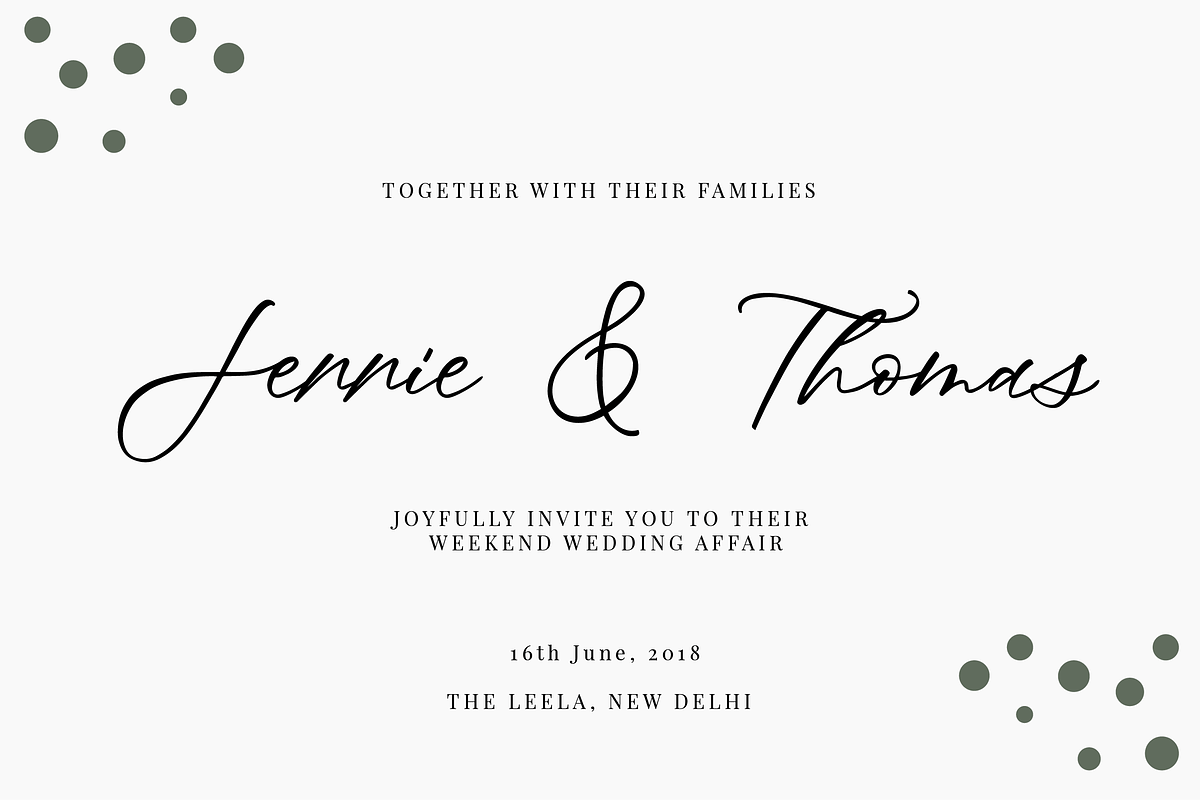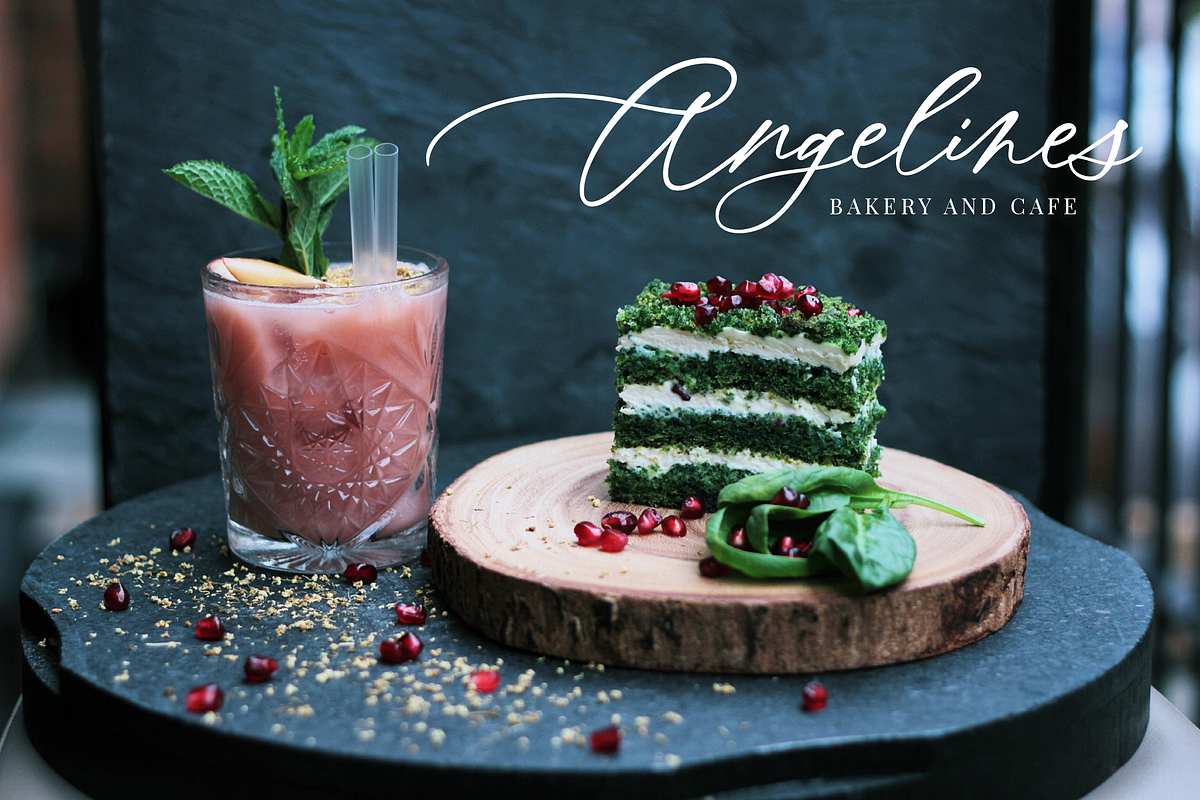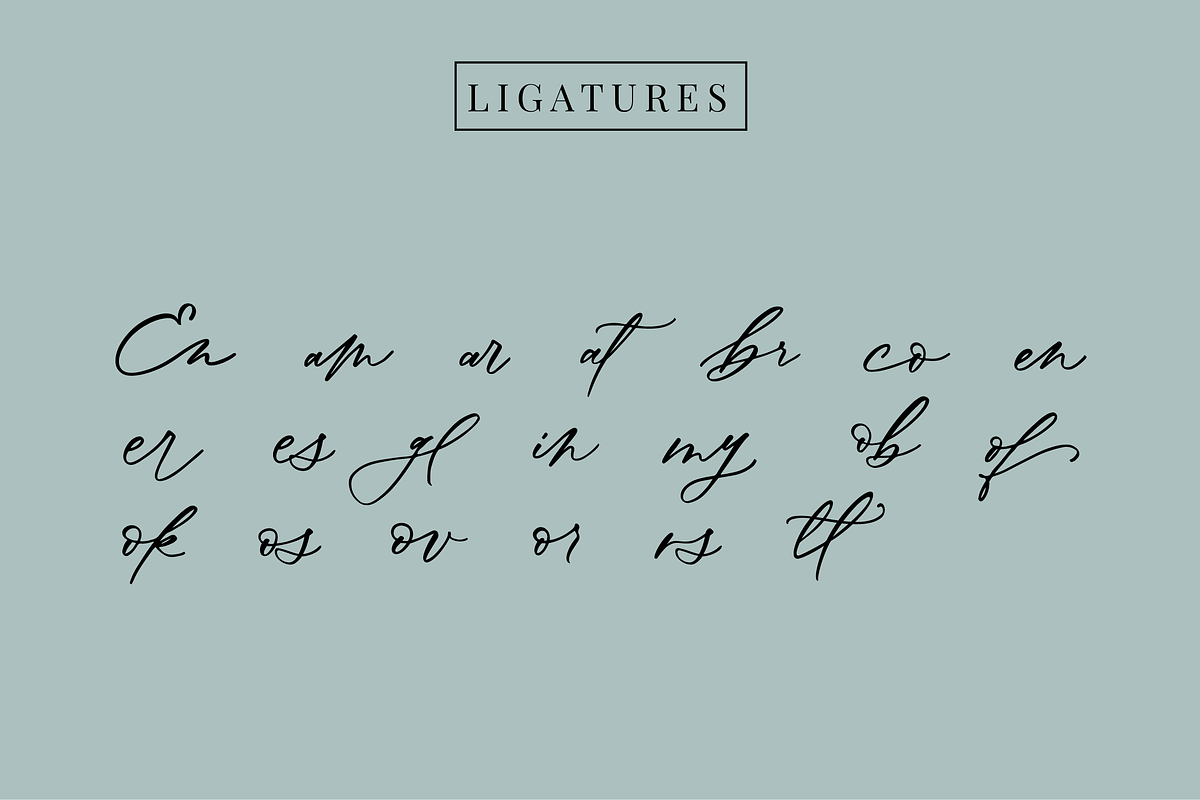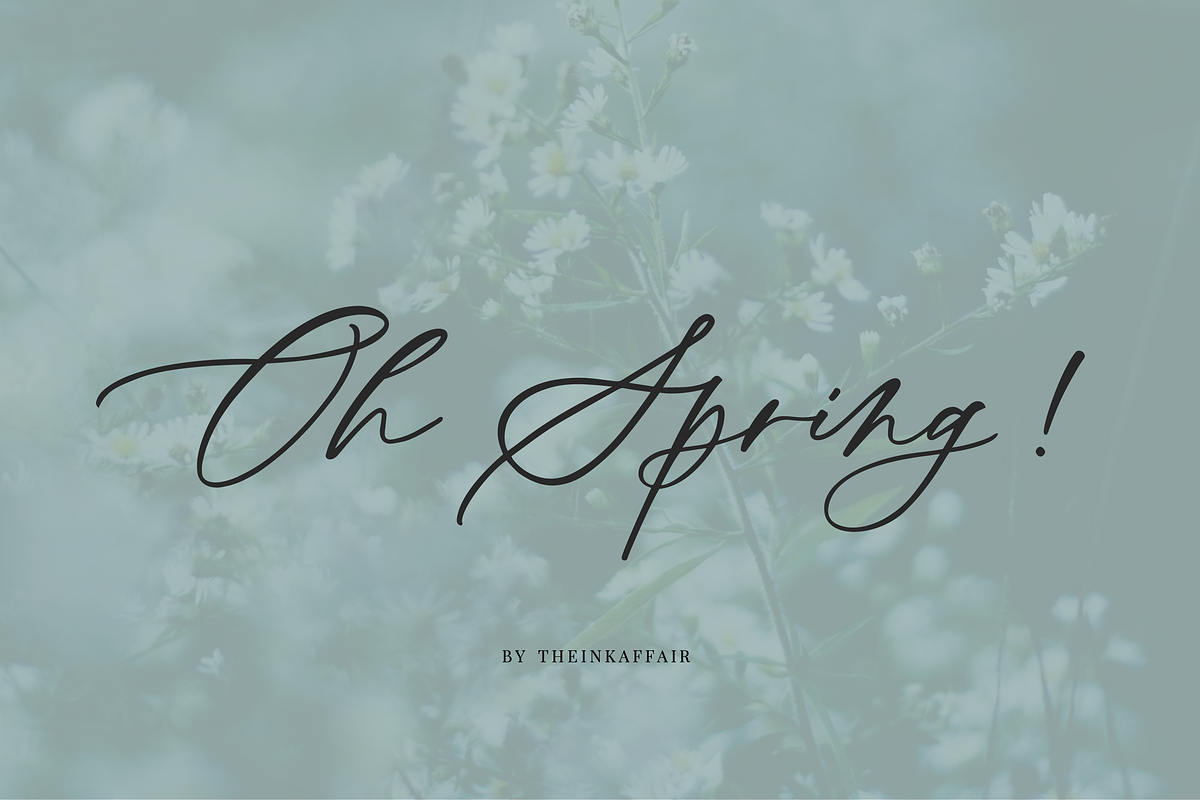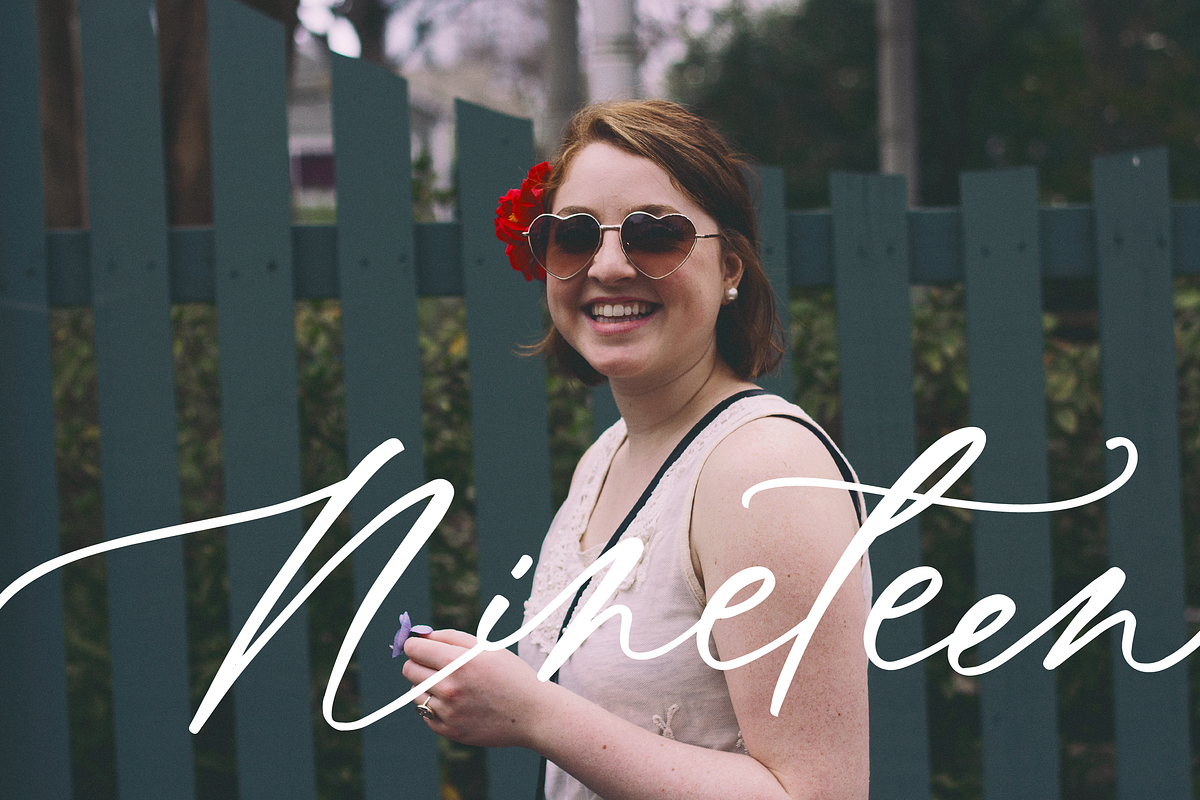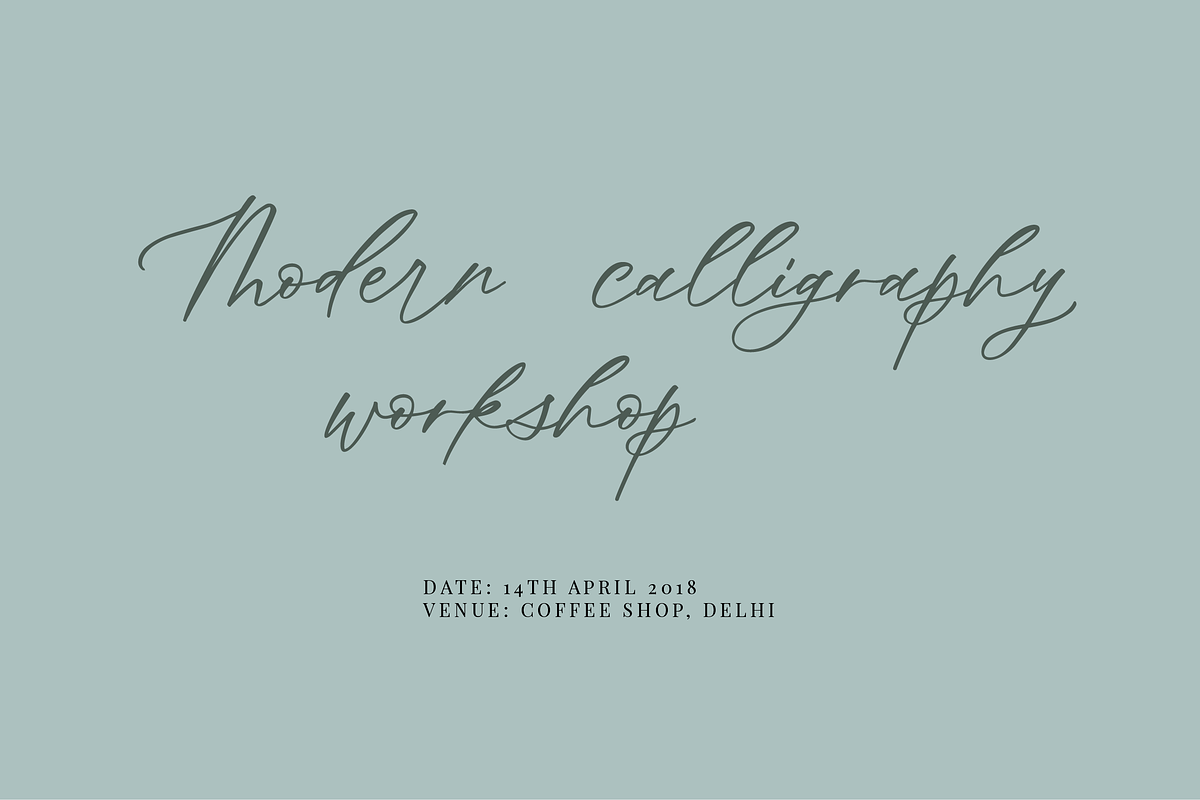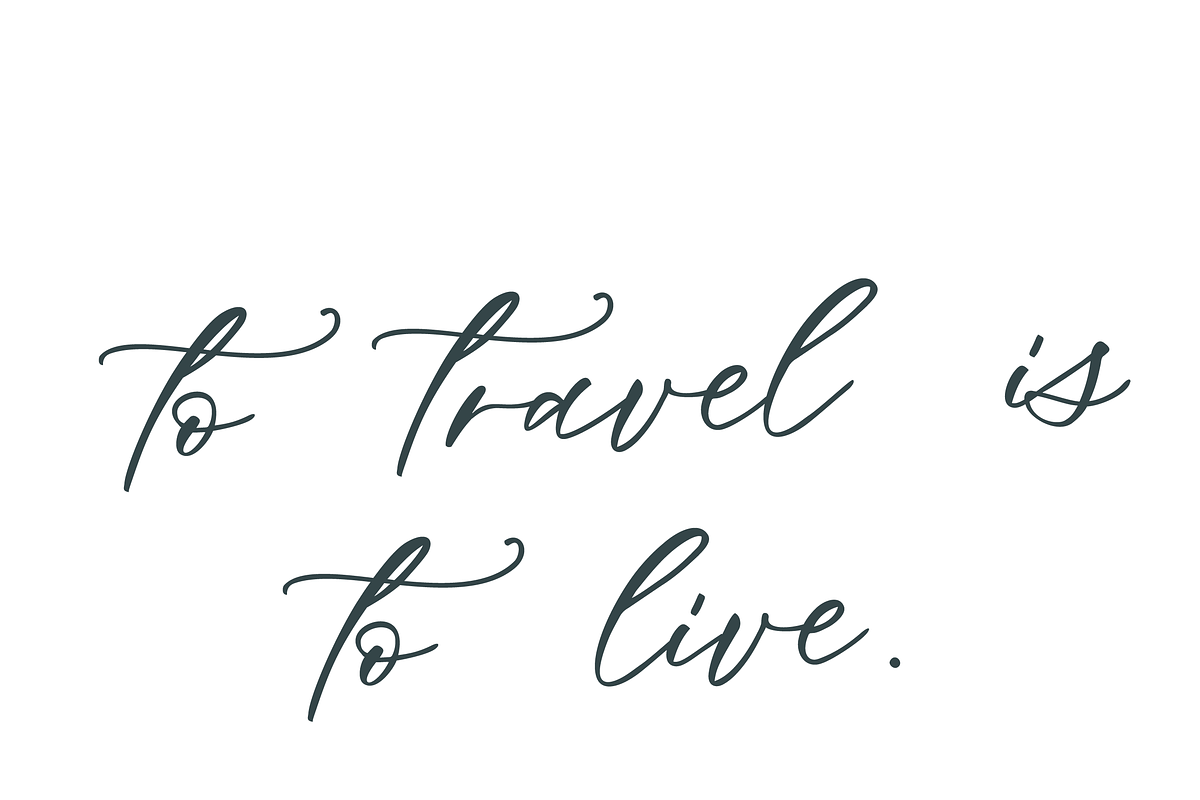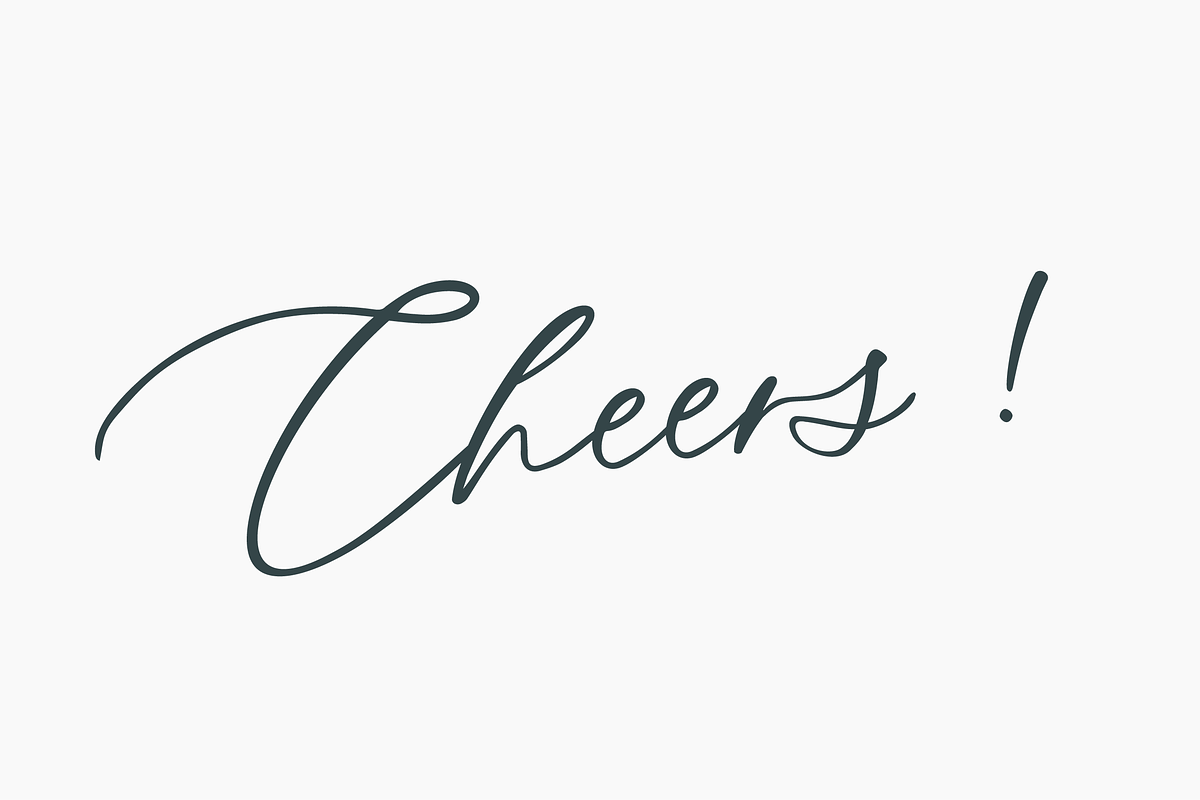
Oh Spring! Calligraphy Font
Say hello to Oh Spring!, a hand lettered calligraphy font with an elegant touch. It is perfect for wedding invites, packaging, branding, pretty social media and Instagram posts, logos and so much more!
Oh Spring! includes a full set of gorgeous uppercase and lowercase letters, numbers and punctuation and a bunch of ligatures.
- International language support included
- includes a full set of gorgeous uppercase and lowercase letters, numbers and punctuation and a bunch of ligatures.